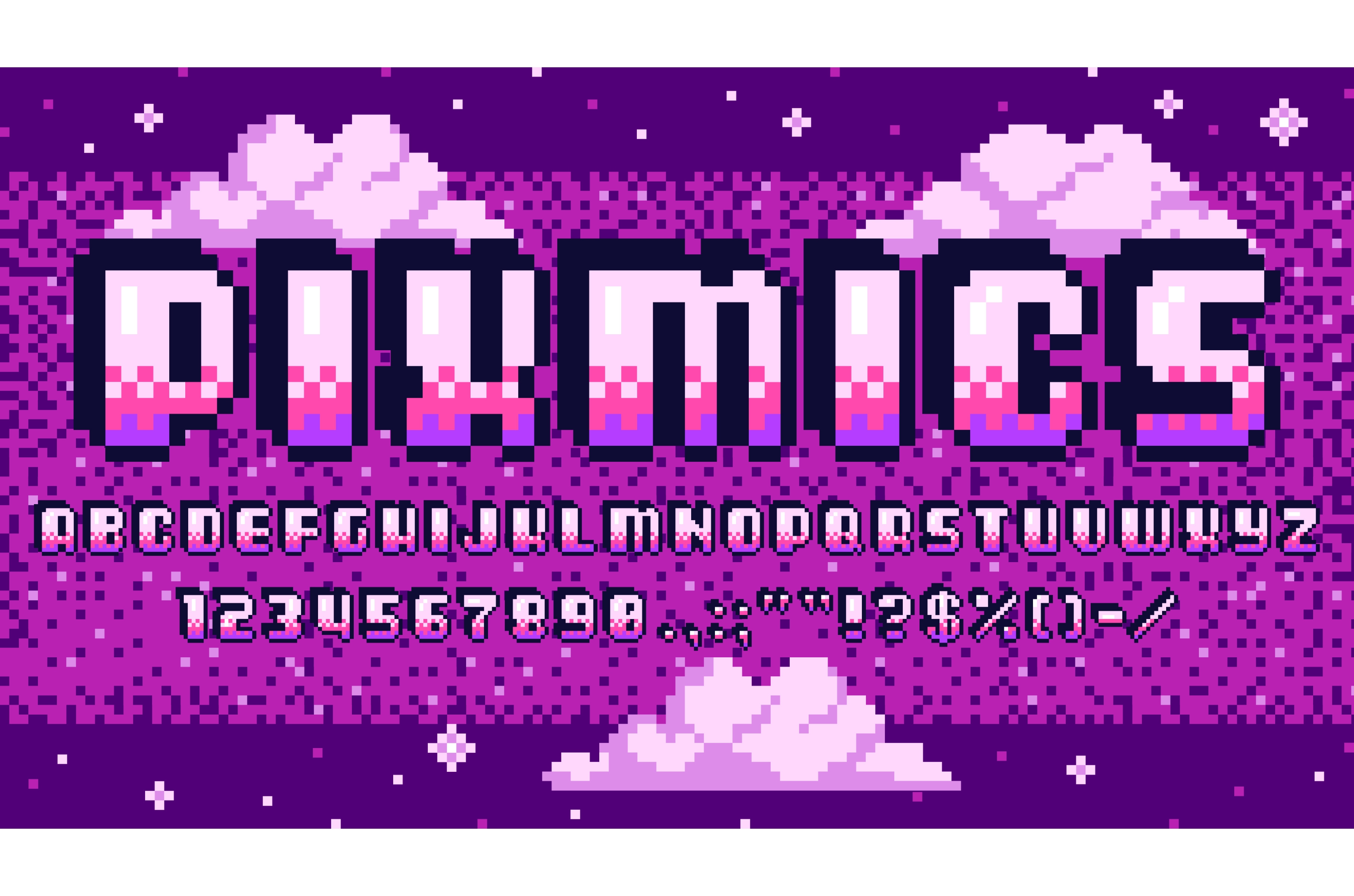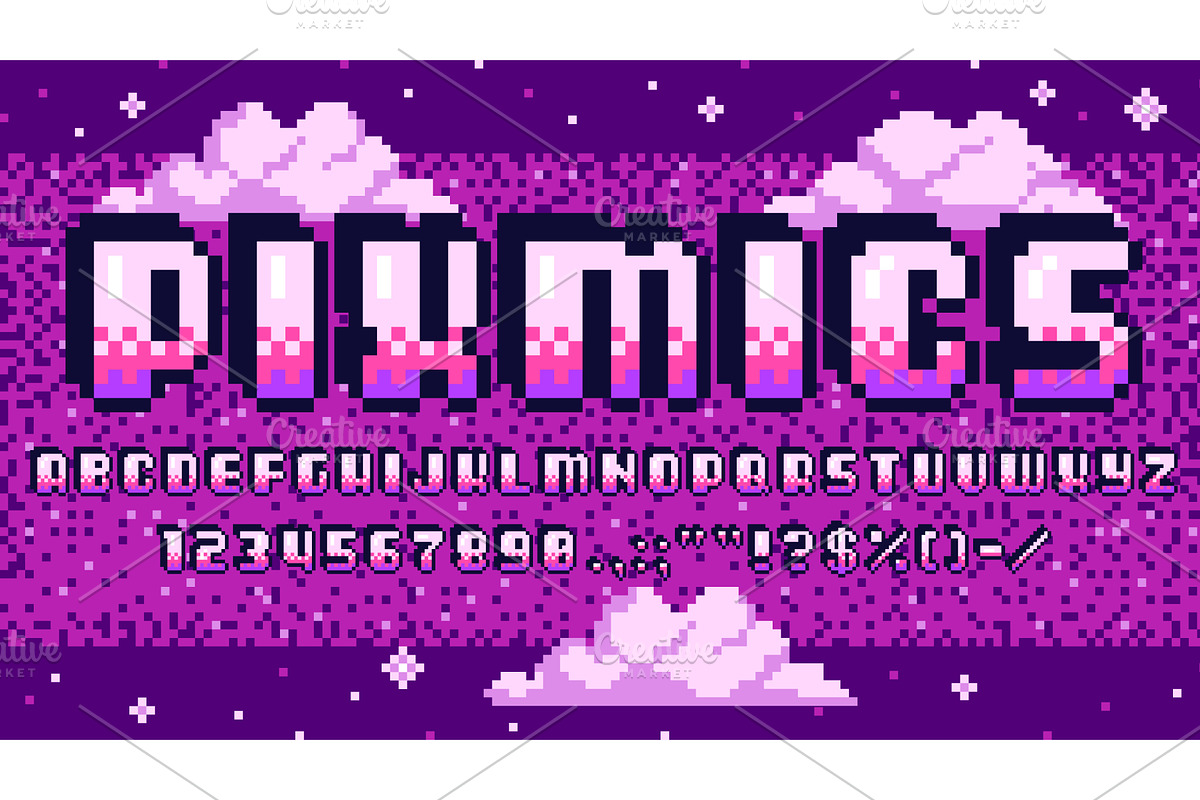
Pixel art font, retro 8 bit type
Pixel art font, retro 8 bit game type alphabet. Old computer digital font letters, numerals and punctuation marks at vector background of retro arcade game space purple pixel sky and clouds